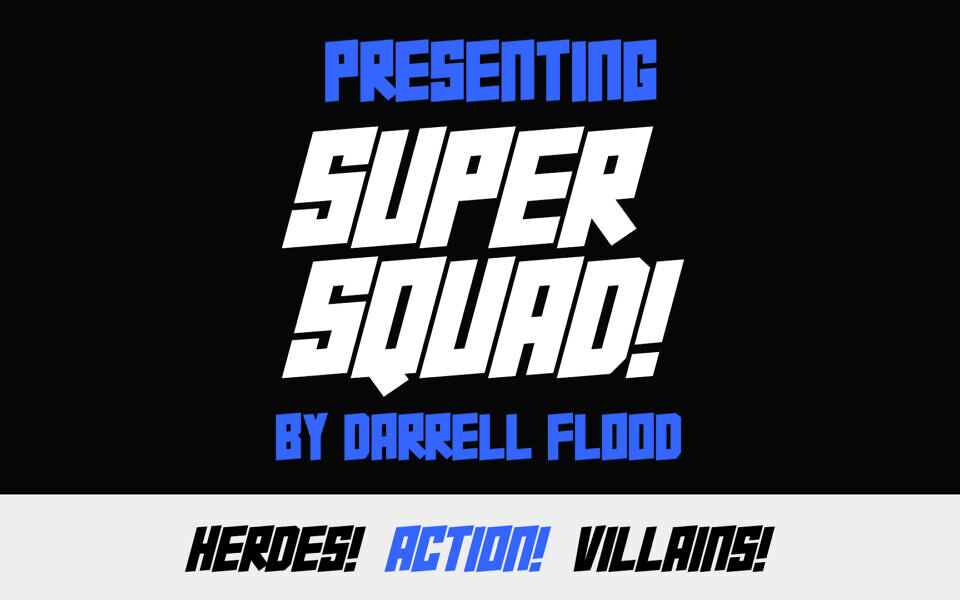
Super Squad is a bold action font in a super hero comic book style. Perfect for battling villains, fighting off alien invasions and general sci-fi use!